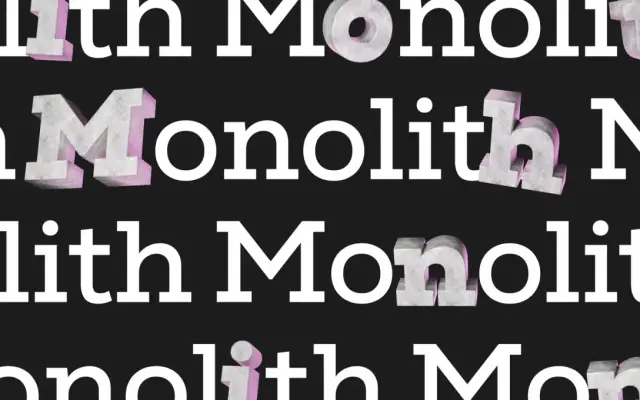
Nexa Slab
Fontfabric · Svetoslav Simov, Ivelina Martinova, Ani Dimitrova · 2013
A geometric slab companion to Fontfabric's Nexa, offering 27 styles across upright, italic and oblique cuts with variable font support and extended Cyrillic.
Built as a companion to the Nexa sans-serif, this typeface takes its cues from geometric slabs like Rockwell, Lubalin Graph and Memphis, pairing square proportions and low stroke contrast with rounded counters that soften the overall texture. The family spans eight weights from Thin to Black, each available in upright, italic and oblique, with variable TTF versions also included. A recent update added an extended Cyrillic character set, refined kerning and additional OpenType features including small capitals, fractions and case-sensitive forms.
Nexa Slab is a geometric slab serif with square proportions, low stroke contrast and rounded counters, drawing directly from the tradition of Rockwell, Lubalin Graph and Memphis.